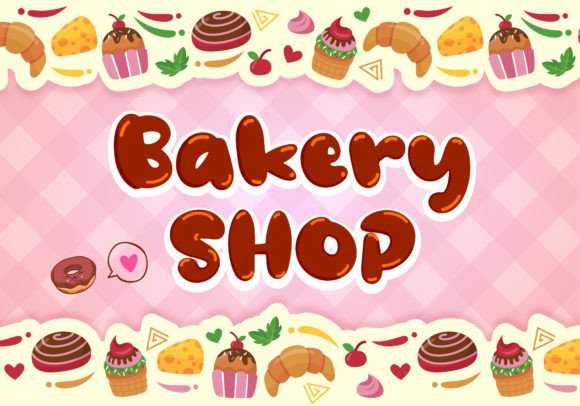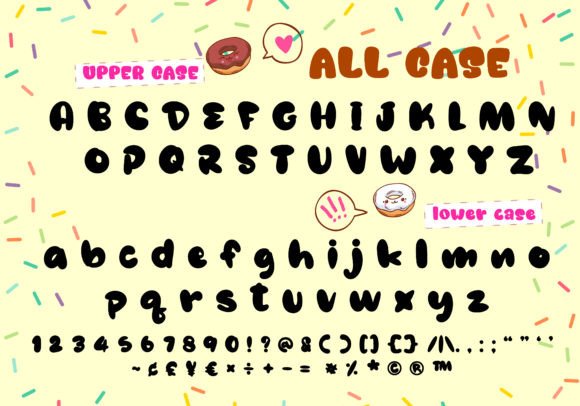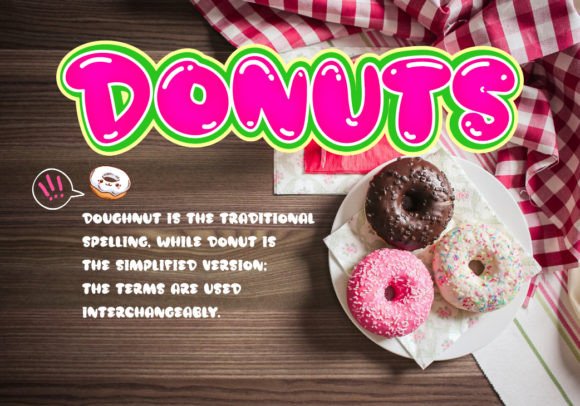
Introduction to Mini Donuts Font
Mini Donuts is a cute, cool, and friendly display font.
It embodies playfulness and authenticity and is the perfect choice for any children’s activity or school project Add this chunky lettered font to your designs and notice how it makes them come alive.